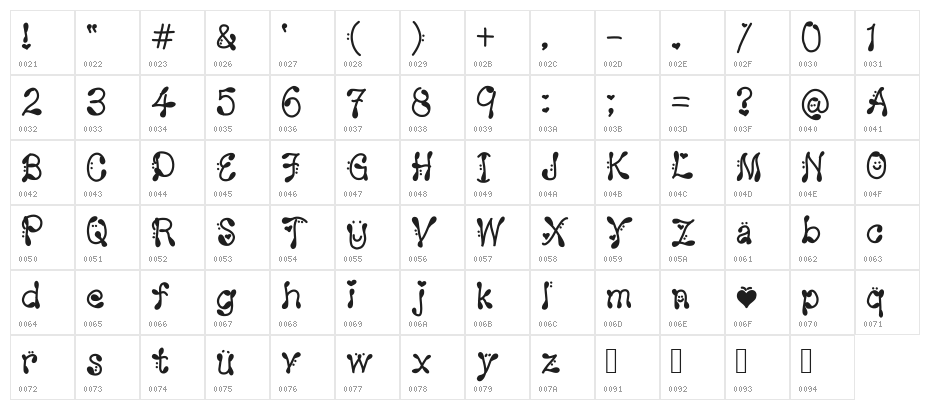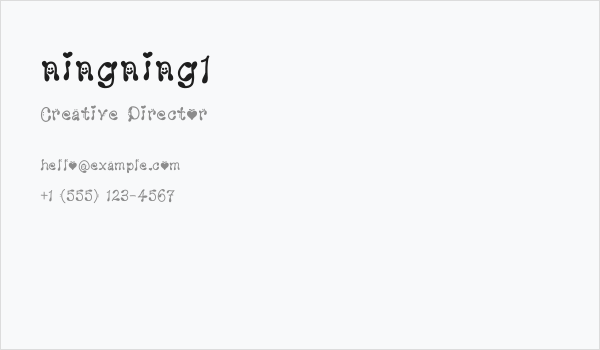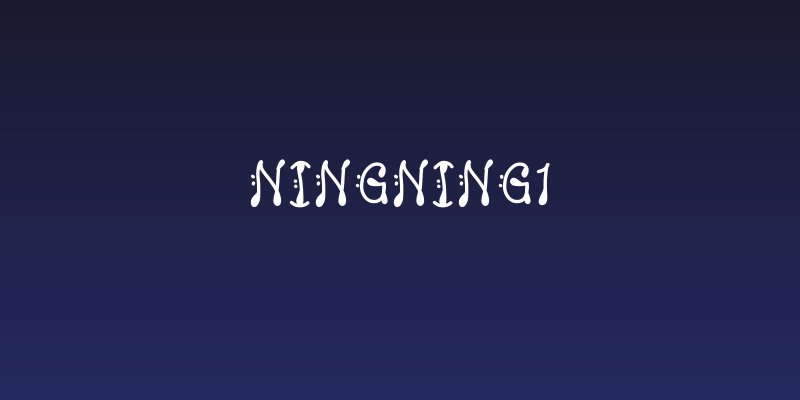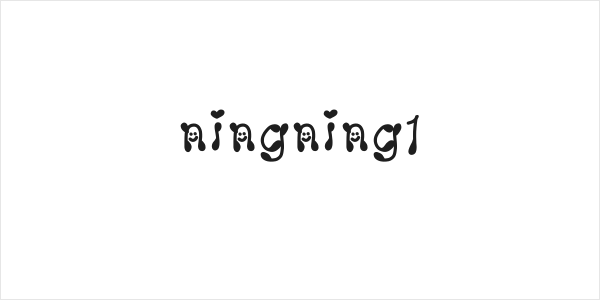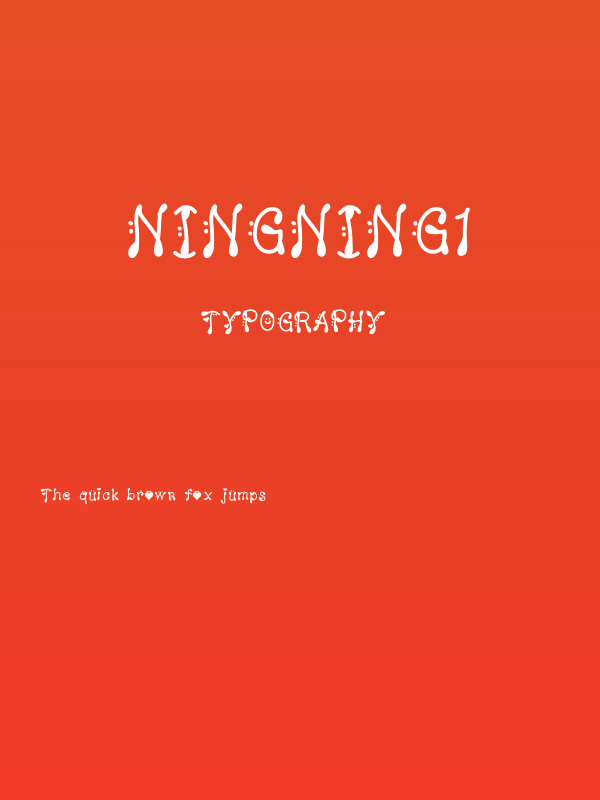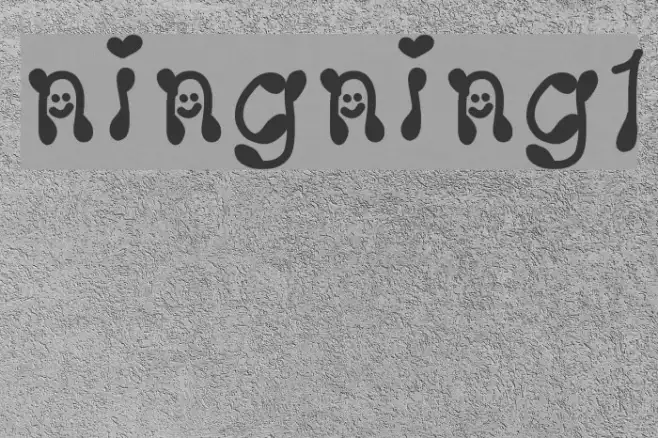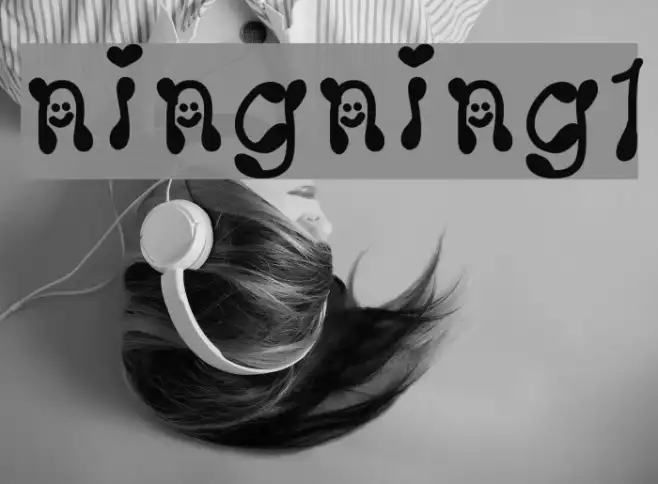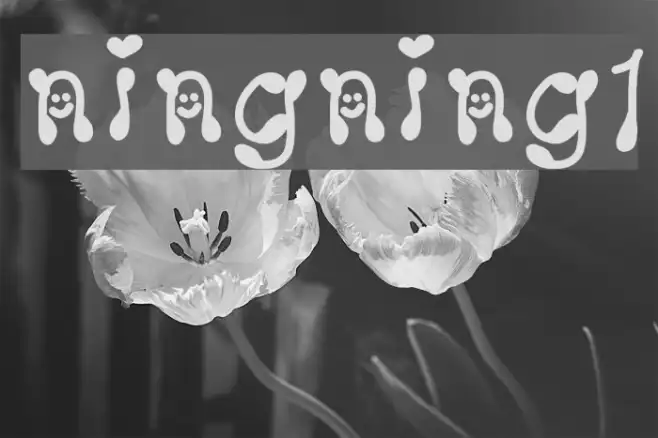
ningning1 Font
ningning1 Description
This playful and whimsical font features unique decorative elements, such as dots and heart shapes, integrated into the characters. The letters have a bold and rounded appearance, with a consistent stroke width that gives it a cohesive look. The uppercase and lowercase letters maintain a similar style, with the lowercase letters slightly more compact. The numerals are distinct and easy to read, while the special characters carry the same decorative flair. This font's charming and lively design makes it suitable for creative and fun projects.
| Overall Style | Whimsical |
| Proposed Projects | Ideal for children's books, greeting cards, playful branding, and party invitations. |